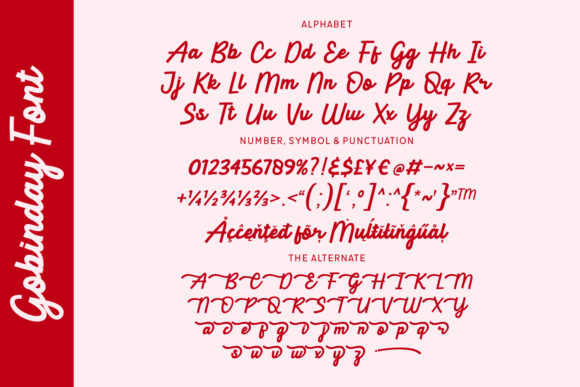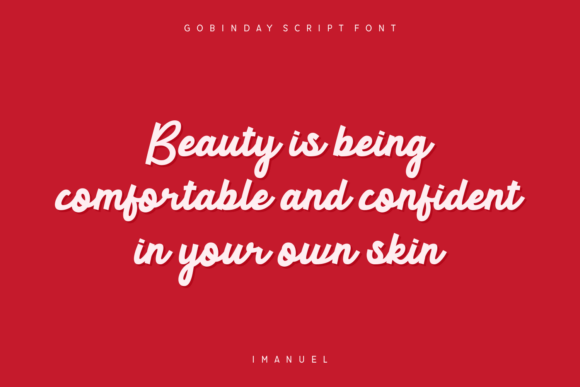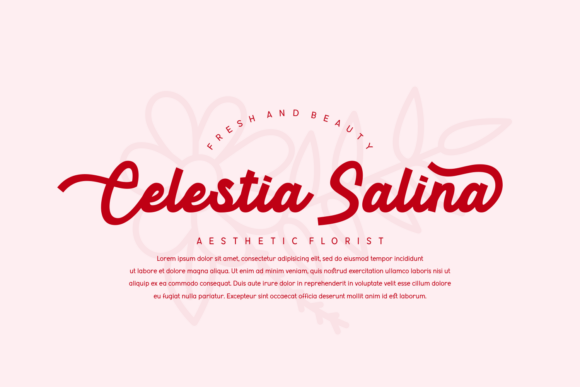
Introducing Gobinday Font: The Ultimate Bold and Energetic Monoline Script Font
Are you tired of using the same old fonts for your designs? Look no further! Gobinday Font is here to revolutionize your creative projects with its bold, energetic, and retro flair. This monoline script font is perfect for designers and crafters who want to add a touch of confidence and movement to their work.
What Makes Gobinday Font Stand Out?
Gobinday Font is not just another font; it’s a statement piece. Its bold and energetic design makes it perfect for logos, sports branding, signage, apparel designs, and packaging. The font’s retro flair adds a touch of nostalgia, while its dynamic swashes bring a sense of movement and energy to any project.
Key Features of Gobinday Font
- Bold and Energetic Design: Gobinday Font is designed to make a statement. Its bold and energetic design makes it perfect for projects that require a confident and dynamic look.
- Retro Flair: The font’s retro flair adds a touch of nostalgia to any project, making it perfect for vintage-inspired designs.
- Dynamic Swashes: The font’s dynamic swashes bring a sense of movement and energy to any project, making it perfect for logos, sports branding, and signage.
- Alternate Swash Options: Gobinday Font comes with alternate swash options, adding extra versatility to the font. This feature makes it perfect for designers who want to experiment with different looks and styles.
- Monoline Script: The font’s monoline script design makes it perfect for modern and vintage-inspired designs alike.
Gobinday Font is perfect for designers and crafters who want to add a touch of confidence and movement to their projects. Whether you’re designing a logo, creating a signage, or making a packaging design, Gobinday Font is the perfect choice.
Use Cases for Gobinday Font
- Logos: Gobinday Font is perfect for logos that require a bold and energetic design. Its dynamic swashes and retro flair make it perfect for logos that need to stand out.
- Sports Branding: The font’s bold and energetic design makes it perfect for sports branding. Its dynamic swashes and retro flair add a touch of excitement and energy to any sports brand.
- Signage: Gobinday Font is perfect for signage that requires a bold and attention-grabbing design. Its monoline script design and dynamic swashes make it perfect for signage that needs to stand out.
- Apparel Designs: The font’s bold and energetic design makes it perfect for apparel designs. Its retro flair and dynamic swashes add a touch of style and confidence to any apparel design.
- Packaging: Gobinday Font is perfect for packaging designs that require a bold and attention-grabbing design. Its monoline script design and dynamic swashes make it perfect for packaging that needs to stand out.
Why Choose Gobinday Font?
Gobinday Font is the perfect choice for designers and crafters who want to add a touch of confidence and movement to their projects. Its bold and energetic design, retro flair, and dynamic swashes make it perfect for a wide range of projects. Here are some reasons why you should choose Gobinday Font:
- Unique Design: Gobinday Font has a unique design that sets it apart from other fonts.
- Versatile: The font’s alternate swash options and monoline script design make it perfect for modern and vintage-inspired designs alike.
In conclusion, Gobinday Font is the ultimate bold and energetic monoline script font with a retro flair and dynamic swashes. Its unique design, versatility, and ease of use make it perfect for designers and crafters who want to add a touch of confidence and movement to their projects. Whether you’re designing a logo, creating a signage, or making a packaging design, Gobinday Font is the perfect choice.